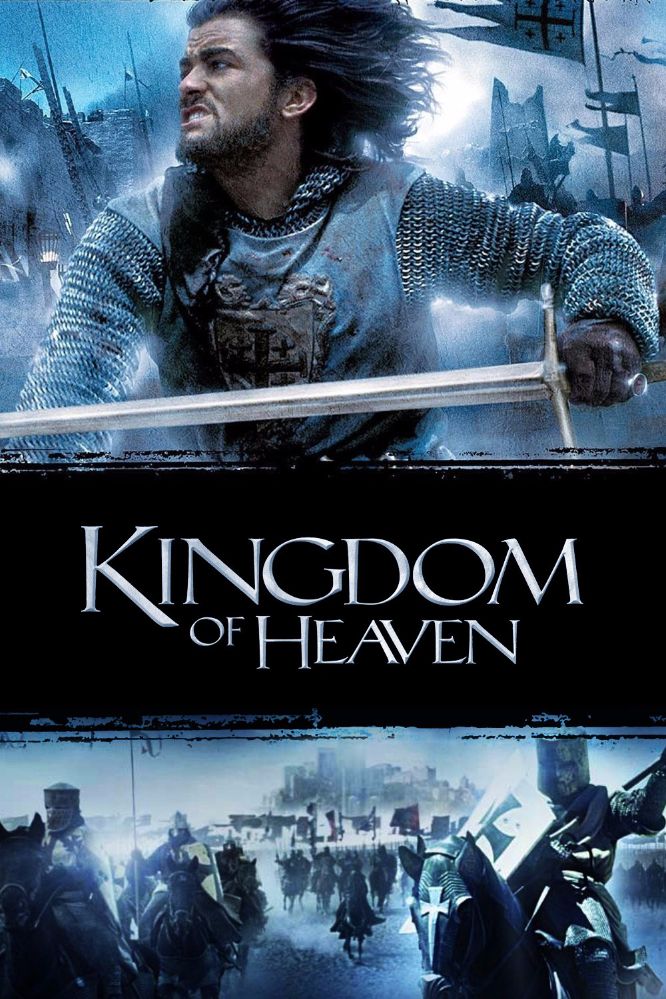
Kingdom of Heaven Font
Fonts in UseKingdom of Heaven is a 2005 historical epic film directed by Ridley Scott, which tells the story of a blacksmith who becomes a knight and defends Jerusalem against the Muslim leader Saladin during the Crusades.
The film's title "Kingdom of Heaven" features a font that closely resembles Eva Antique Light, a hand-drawn quill roman typeface created by German designer Rudolf Koch in 1922. More details about the font can be viewed here.